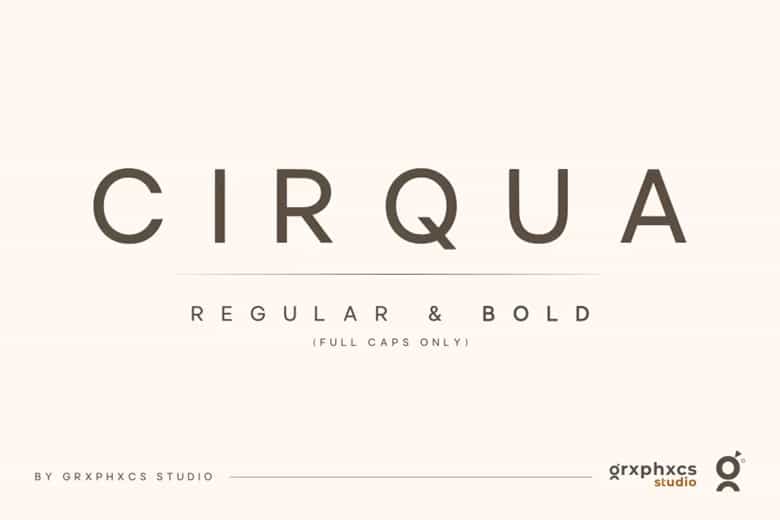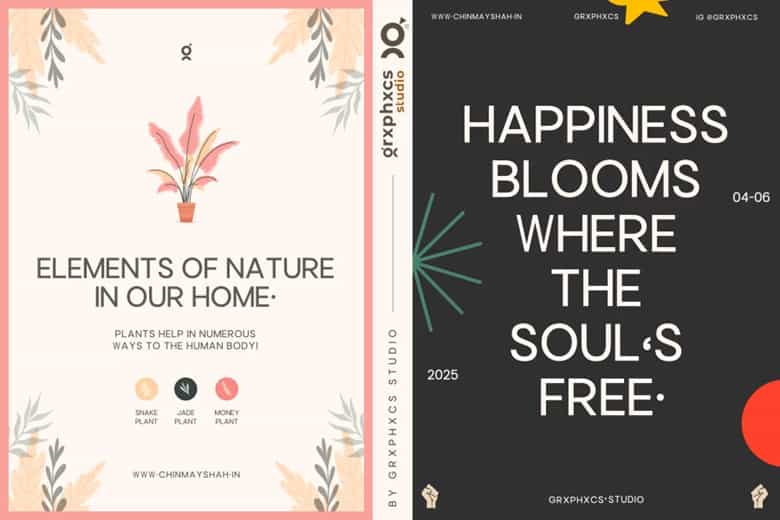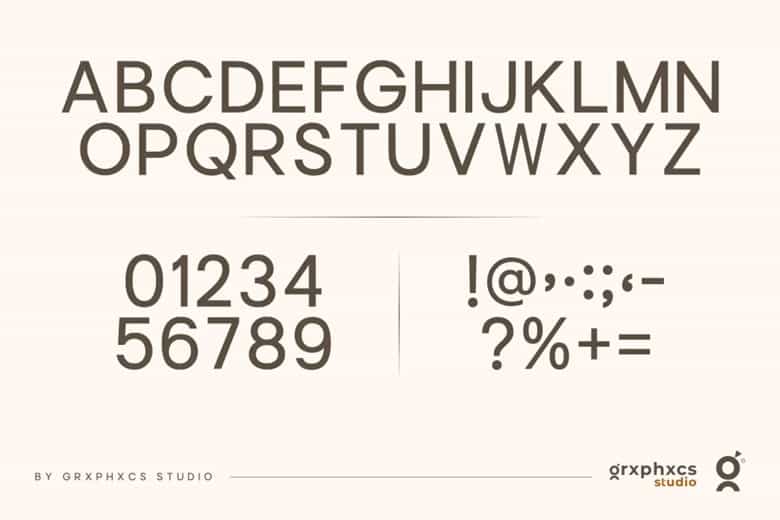
Cirqua is a modern sans serif typeface with neat lines and angular edges. Attention to detail has made it unique as it includes a number of alternate characters along with eye-catching ligatures to make your writing elegant.